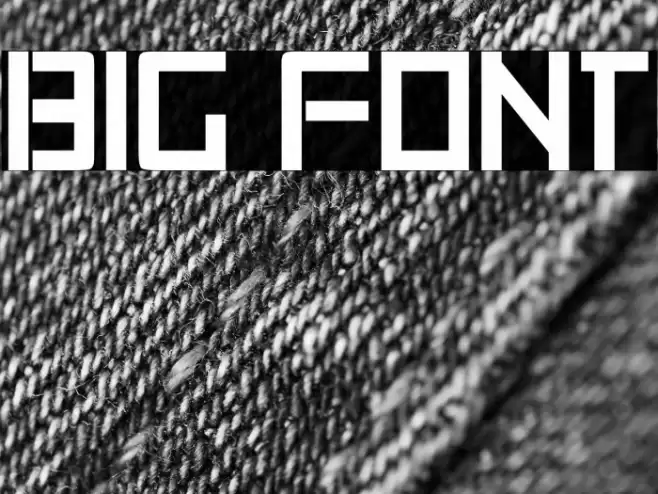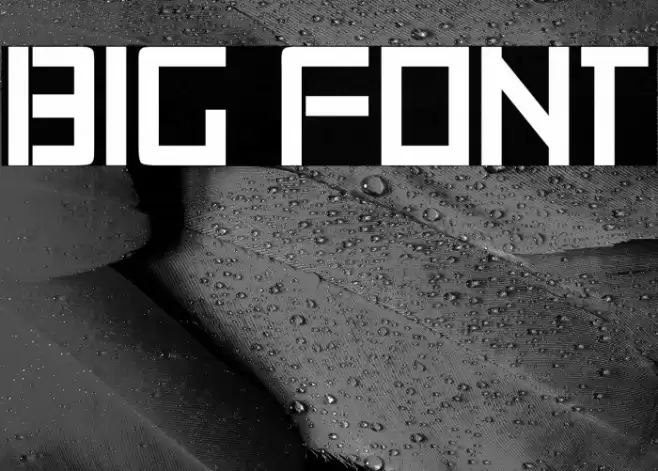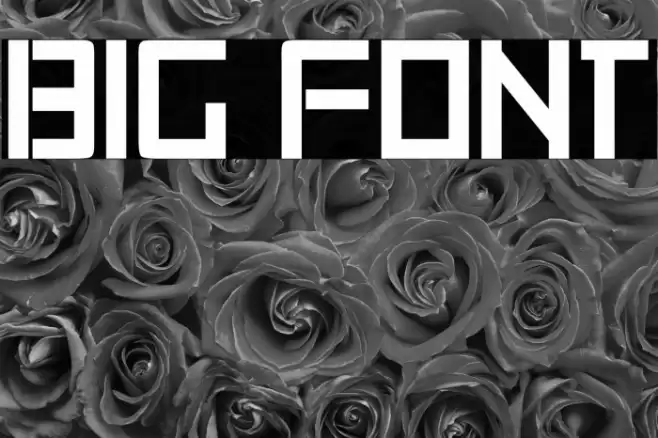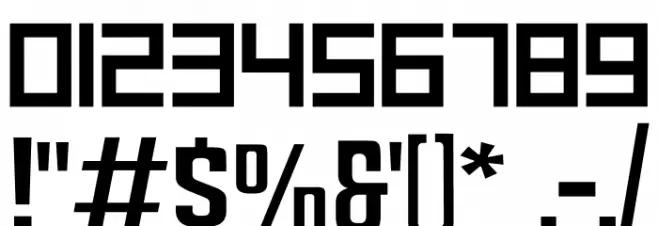
Big Font
Big Description
This font features a bold and geometric design with a strong emphasis on angular shapes and straight lines. The uppercase letters are uniform in height, creating a cohesive and structured appearance. The characters have a futuristic and industrial feel, with sharp edges and a consistent stroke width throughout. The numbers and special characters maintain the same geometric style, ensuring visual harmony across all elements. This font's design is both modern and assertive, making it suitable for projects that require a strong visual impact.
A bold, geometric font with a futuristic and industrial style from Regular fonts.
- Proposed Projects: Ideal for technology branding, video game titles, posters, and modern advertising campaigns.